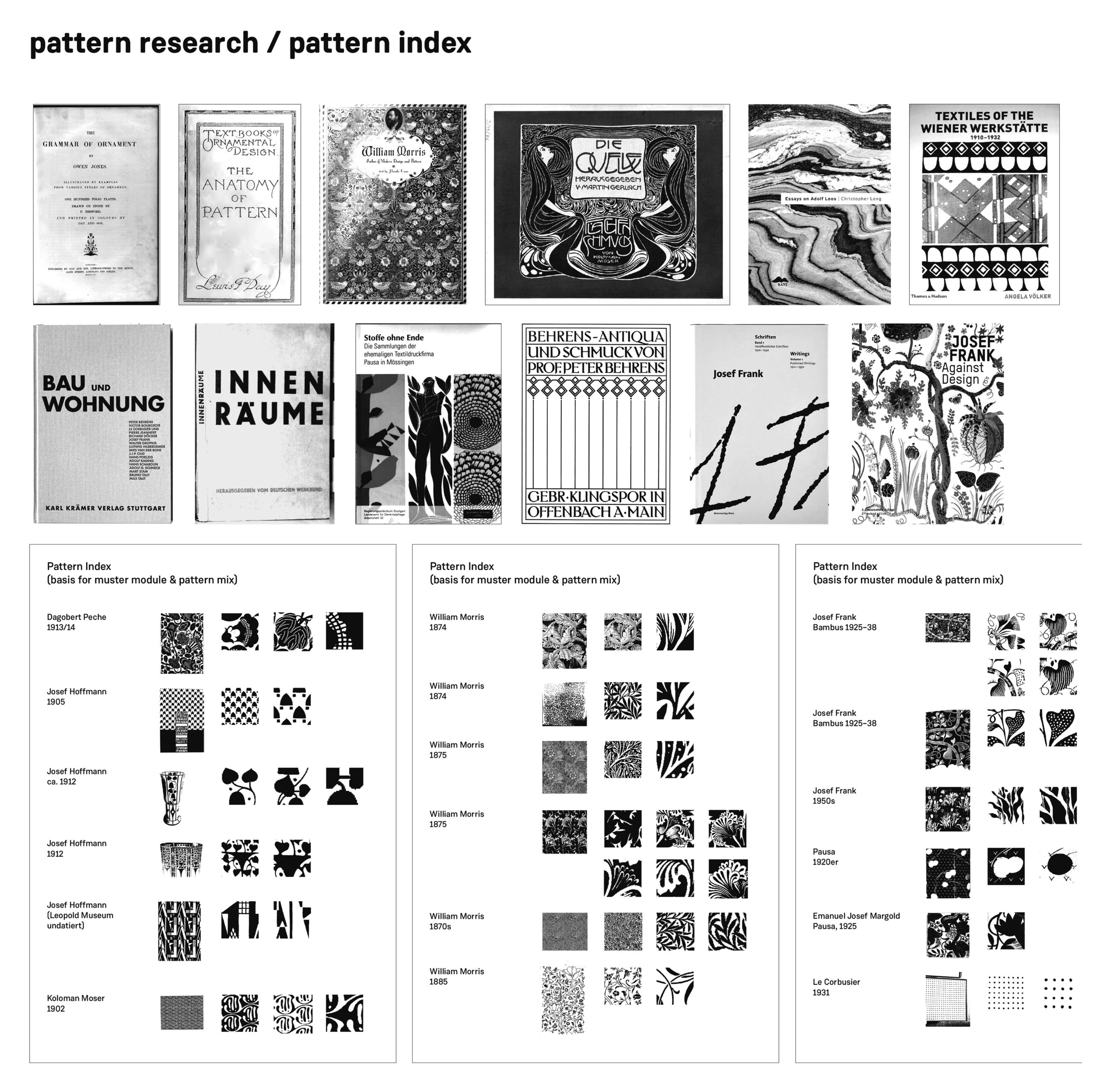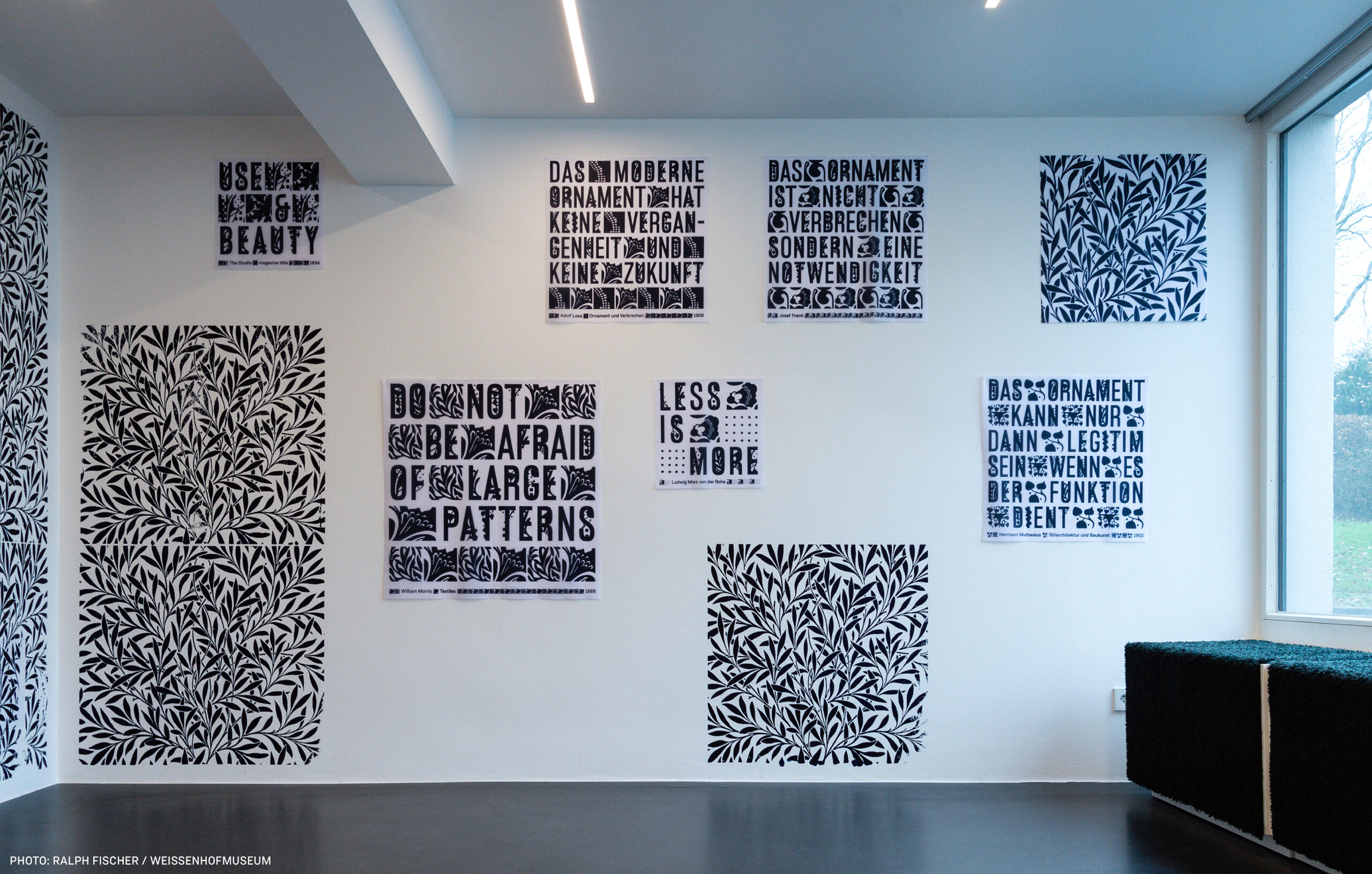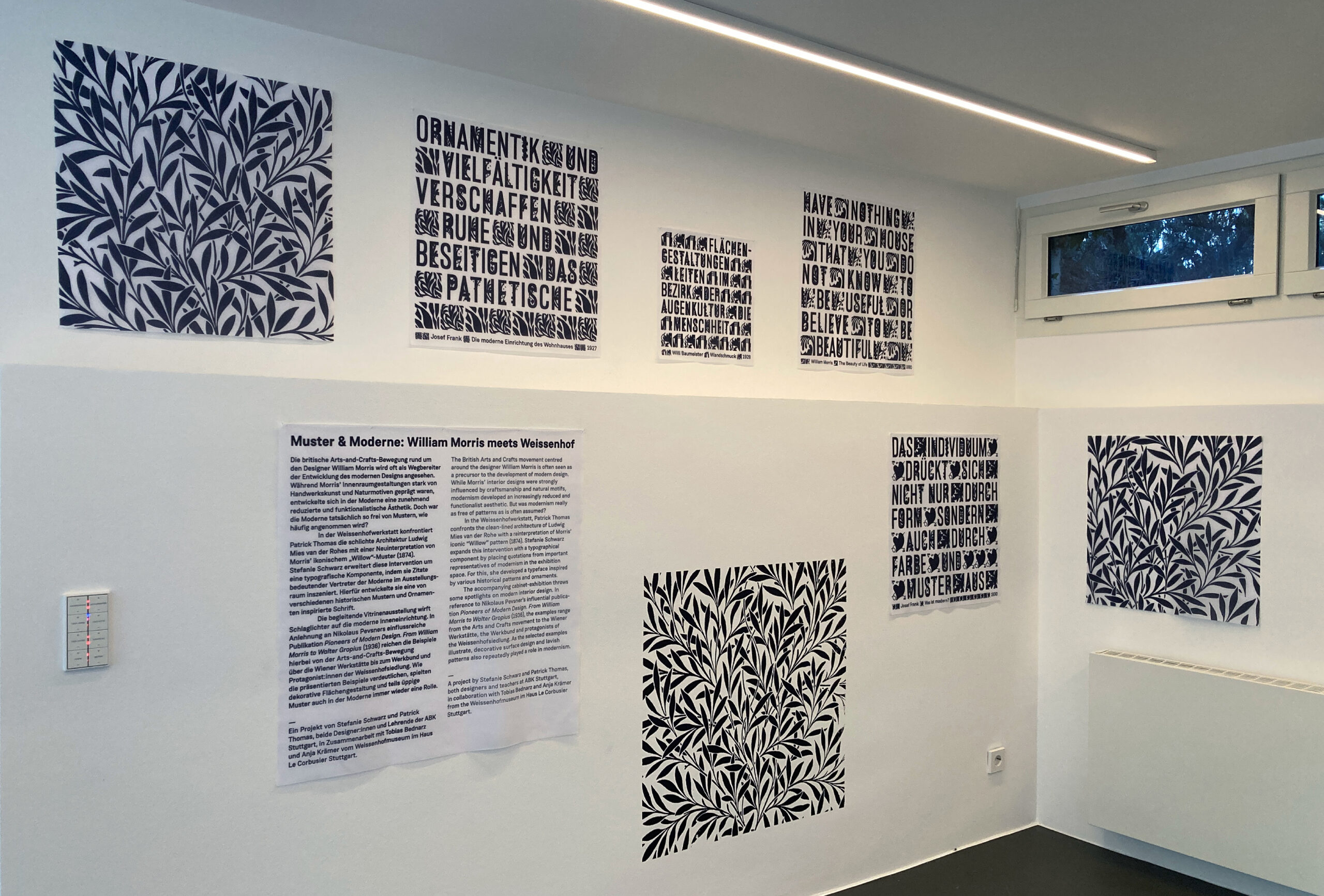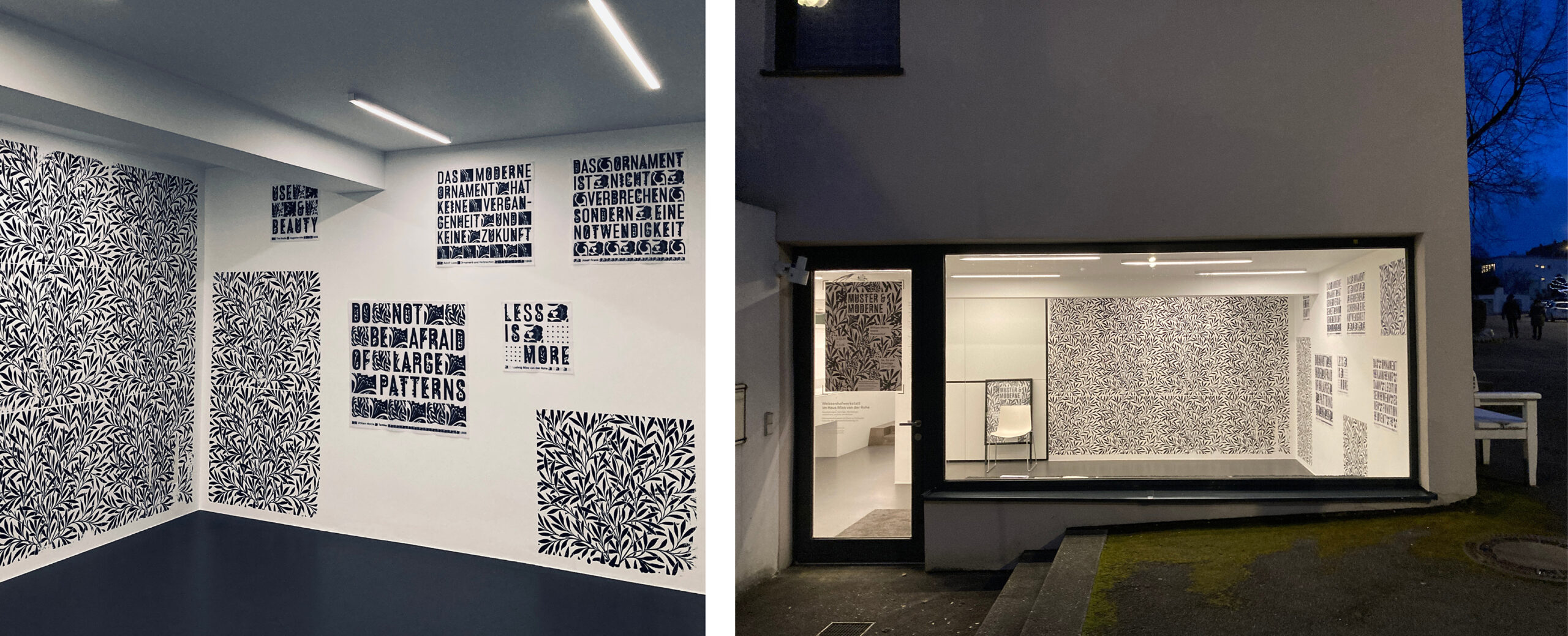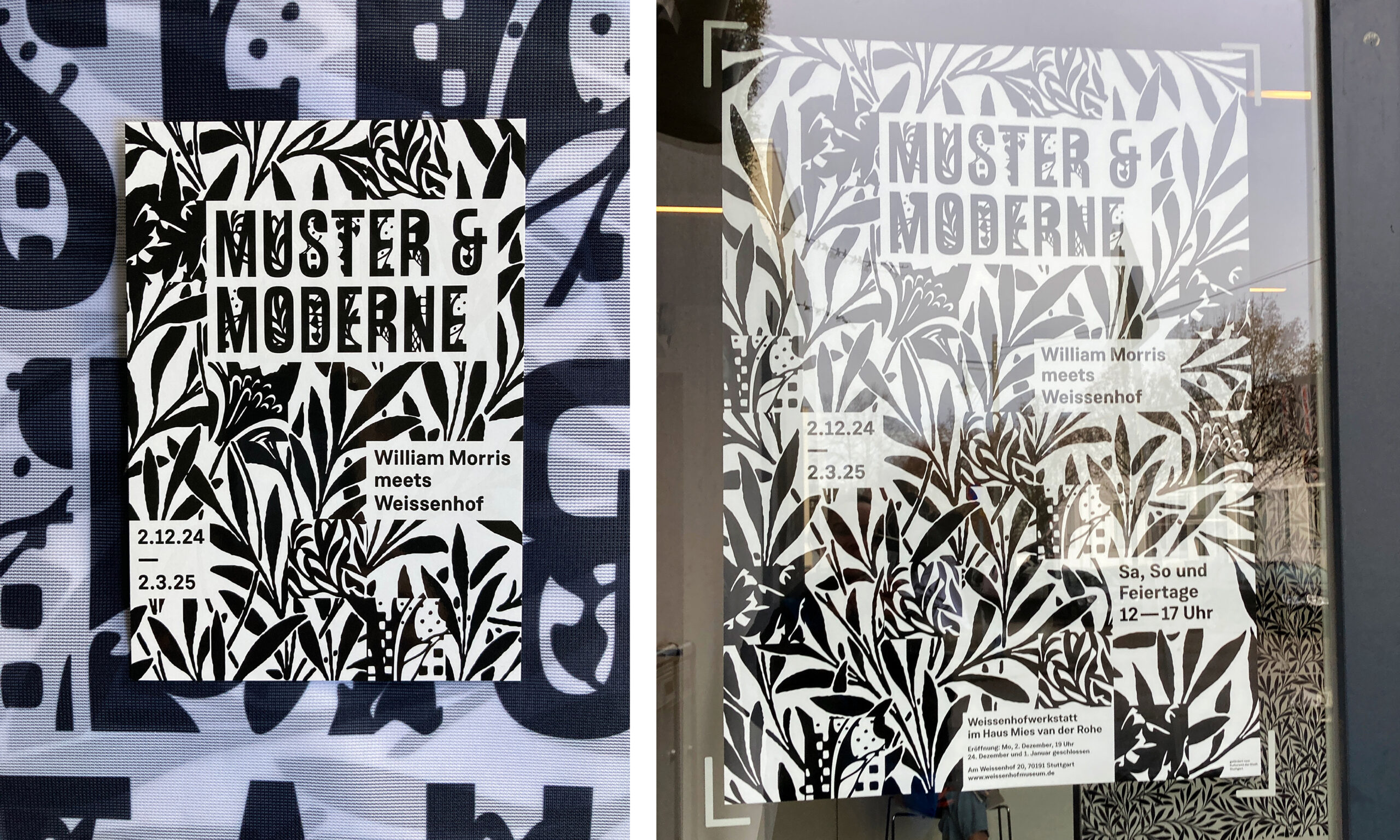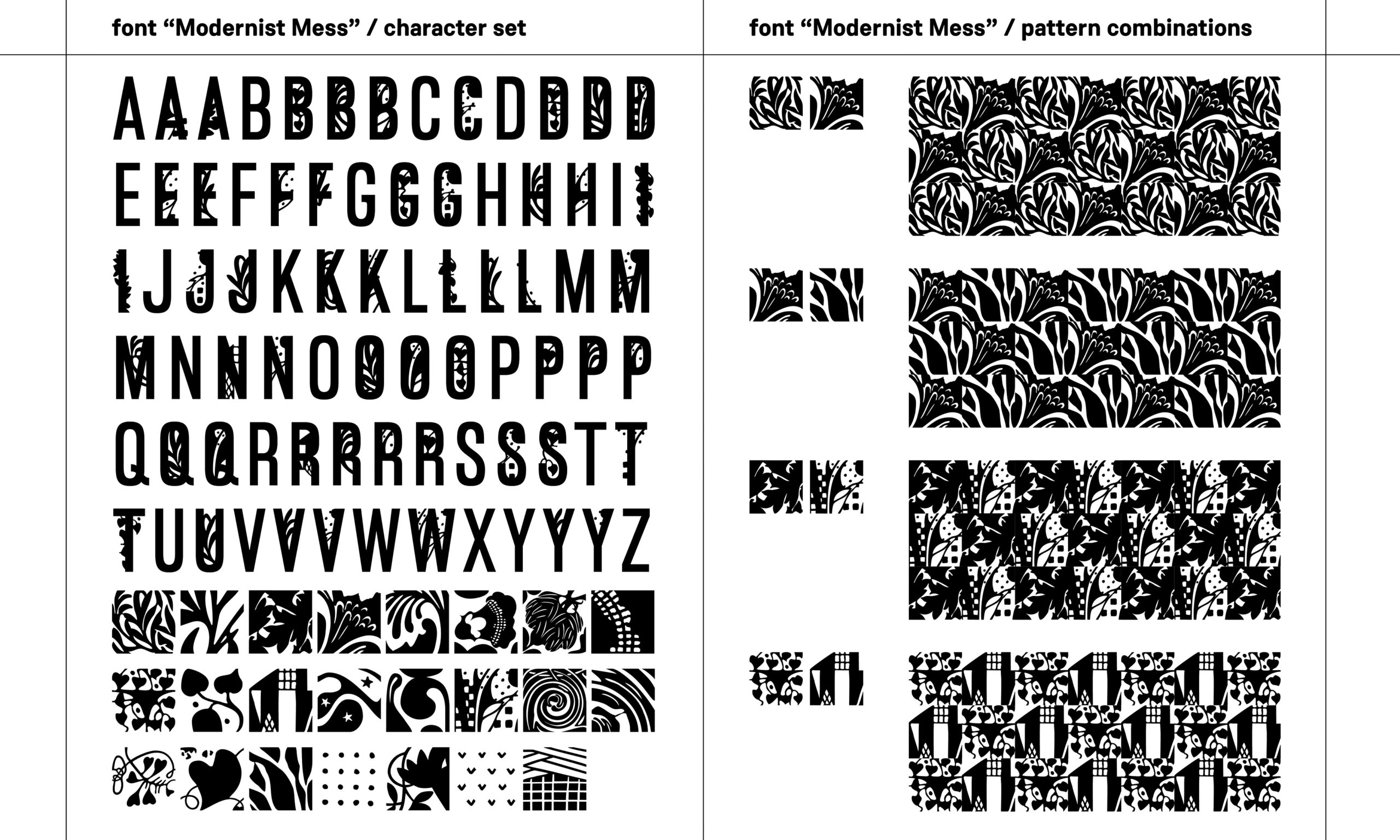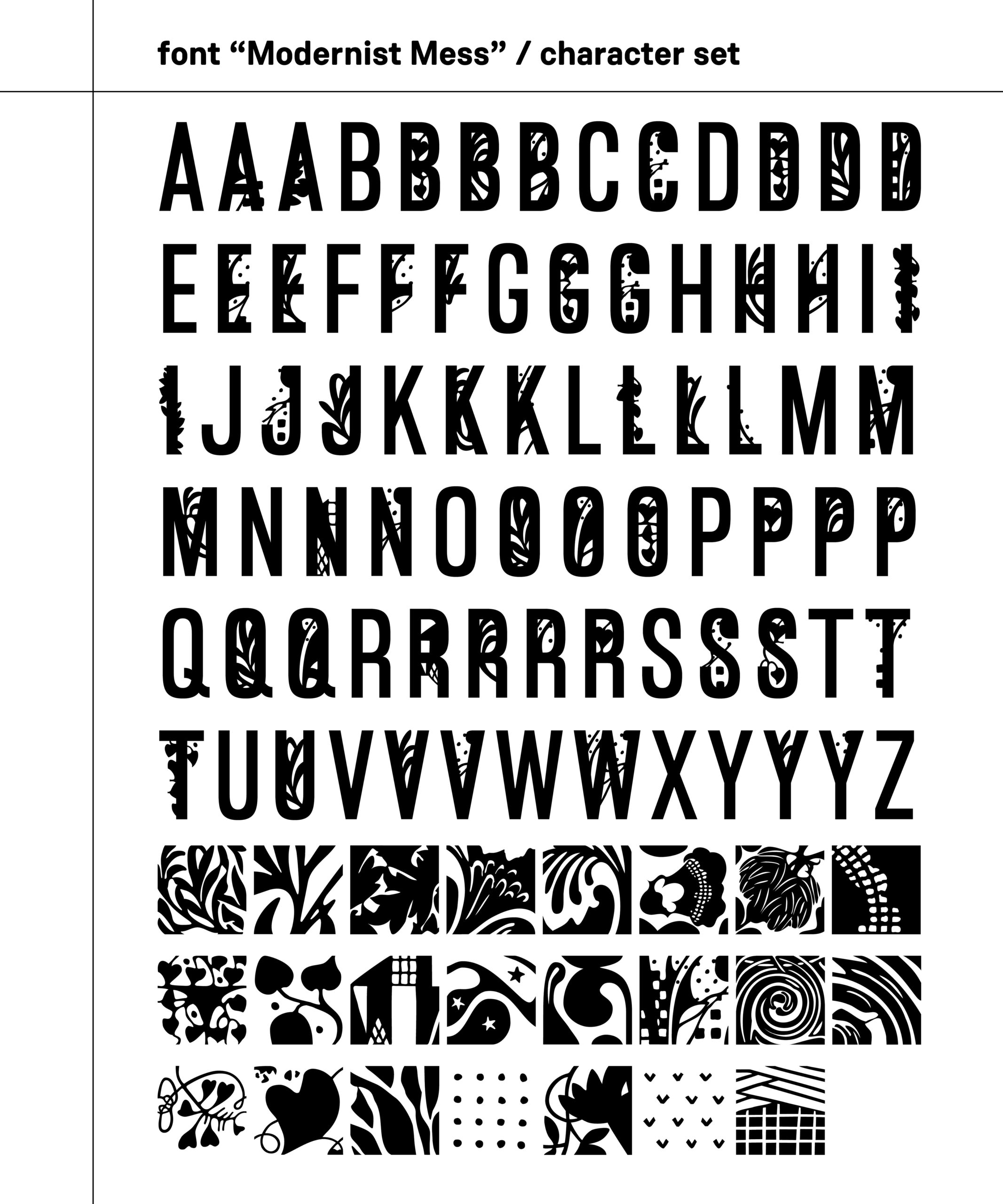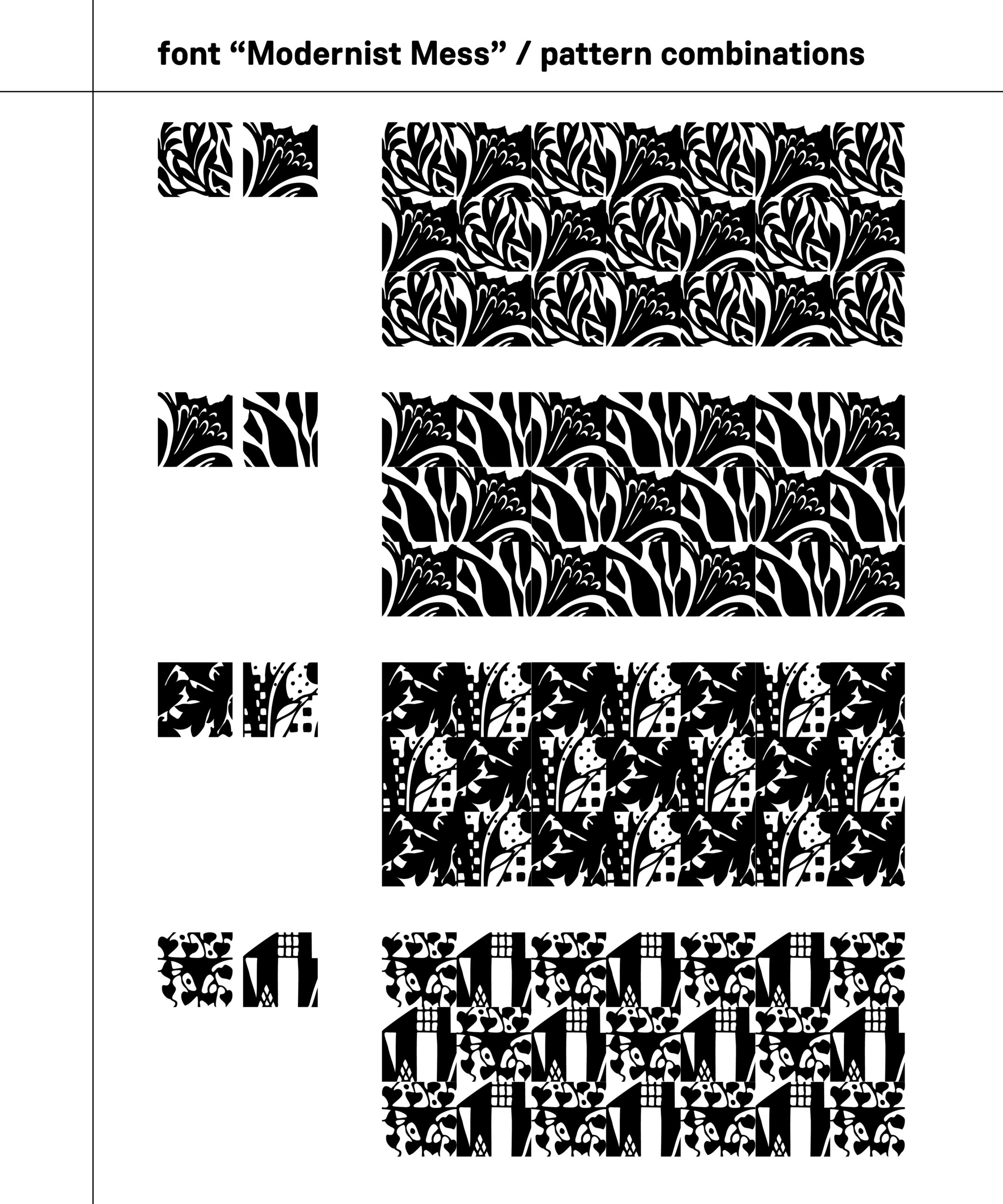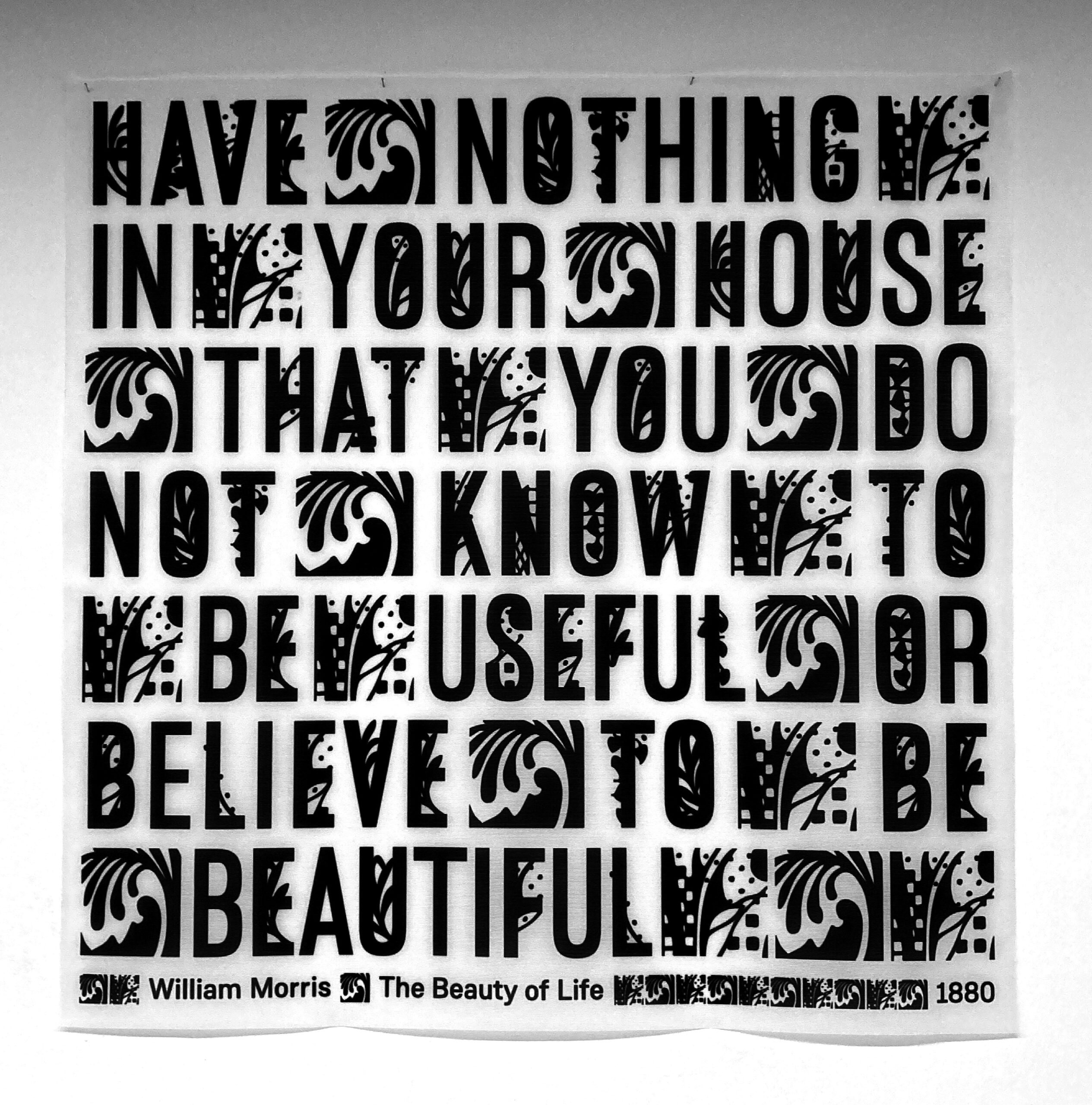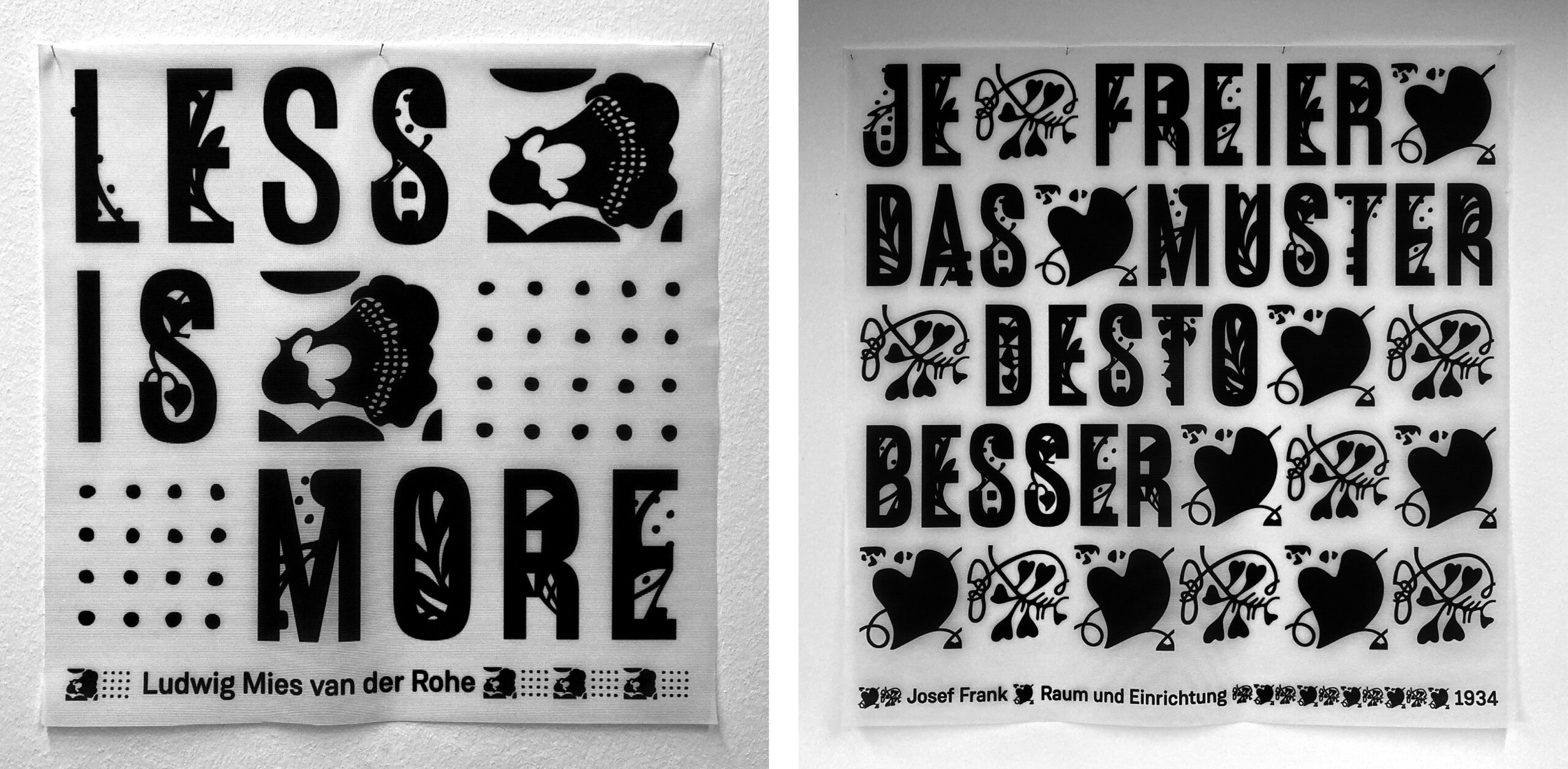
Modernist Mess
Modernist Mess is a type system that embraces reduced minimalism as well as various decorative elements and by doing so represents the multilayered facets of modernism. As a starting point an index has been created with a collection of patterns — from William Morris to the Wiener Werkstätte, up to Werkbund and Weissenhofsiedlung designers. (Stefanie Schwarz, 2024)
The typeface was initially designed for the exhibition “Muster & Moderne — William Morris meets Weissenhof”, a project by Stefanie Schwarz and Patrick Thomas in collaboration with the art historians Tobias Bednarz and Anja Krämer; taking place in a gallery (Weissenhofwerkstatt) inside the Mies van der Rohe building at the historic Weissenhof estate Stuttgart in December 2024 until March 2025.
Therefore Stefanie Schwarz created typographic banners presenting quotes of modernist designers pro and contra ornament. Besides Patrick Thomas confronts the clean-lined architecture of Ludwig Mies van der Rohe with a reinterpretation of Morris’ iconic “Willow” pattern (1874) silkscreen printed directly onto the wall.